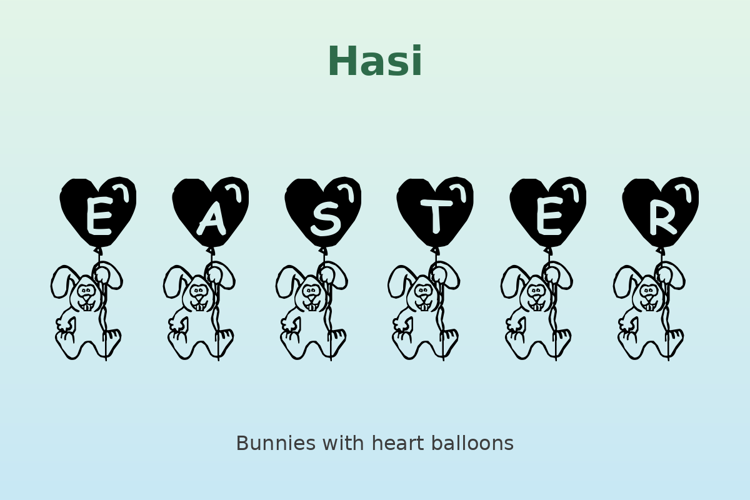
Hasi Font
A bunny holds a heart-shaped balloon with a letter or number — a sweet Easter alphabet the designer drew as a belated Easter 2000 gift, with Happy Easter and Frohe Ostern balloons tucked in. Uppercase letters and numbers with exclamation, comma, and period. Emailware: free for private use. Commercial use requires her written permission.